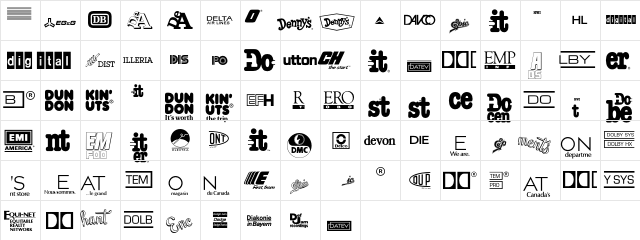
LogosCompany P06
Design Context for LogosCompany Typeface
LogosCompany is a composed and adaptable typeface that performs quietly and consistently across a wide range of design contexts.